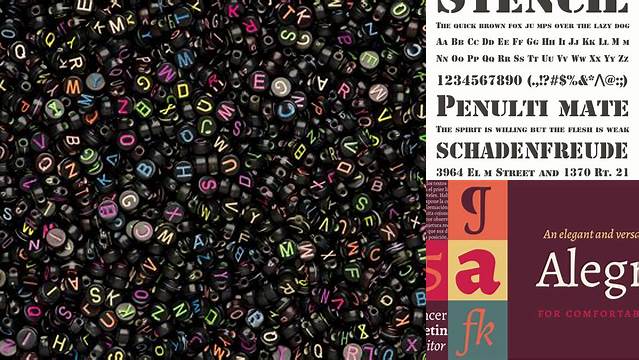
Google Fonts Stencil: Free Unique Fonts For Your Designs
Are you looking to add a unique, industrial, or vintage touch to your design projects? Look no further than stencil fonts available on Google Fonts! These fonts, characterized by their cut-out designs, offer a distinctive aesthetic that can elevate your branding, posters, logos, and more. In this comprehensive guide, we'll delve into the world of Google Fonts stencil fonts, exploring their history, characteristics, best uses, and providing practical tips for incorporating them effectively into your designs. So, buckle up, design enthusiasts, and let's explore the world of stencil fonts!
What are Stencil Fonts?
Stencil fonts, at their core, are typefaces designed with breaks or gaps in their letterforms, mimicking the appearance of letters created using a physical stencil. The history of stencil fonts is deeply intertwined with practical applications. Imagine needing to label crates, mark military equipment, or create signage quickly and efficiently. Stencils provided a reusable solution, and the fonts evolved to reflect this functional origin. These fonts evoke a sense of industrial history, DIY culture, and utilitarian design. Because of their roots, they can convey a sense of authenticity and ruggedness that other fonts might lack. This makes them perfect when you want to evoke the past or communicate a no-nonsense, practical message. Stencil fonts are instantly recognizable and can add a lot of character to a design. They immediately catch the eye, making them ideal for headlines, posters, and branding elements where you want to make a statement. The cut-out design lends itself well to creative applications, from layering and coloring to incorporating textures and patterns. Beyond the classic, utilitarian look, stencil fonts come in a surprising variety of styles. You can find modern, geometric stencils, as well as more decorative and ornate versions. Some have a subtle, almost unnoticeable break in the letterforms, while others feature bold, dramatic gaps. The versatility of stencil fonts means they can be adapted to a wide range of design projects, from branding and advertising to web design and even fashion. Ultimately, the goal is to use them strategically to enhance your design and communicate the intended message. Consider the overall tone and feel you want to achieve and choose a stencil font that complements your vision.
Why Choose Stencil Fonts from Google Fonts?
Top Google Fonts Stencil Fonts to Consider
Selecting the right stencil font from Google Fonts can significantly impact the overall aesthetic and message of your design. Here are some top contenders, each with its unique charm and application:
- Bebas Neue Stencil: A sleek and modern stencil font that maintains the clean lines of the popular Bebas Neue family. Ideal for headlines, posters, and branding where you want a contemporary and impactful look.
- Staatliches: With its bold and geometric design, Staatliches exudes a sense of strength and authority. Perfect for industrial-themed designs, logos, and signage.
- Archivo Black: A heavyweight sans-serif with a stencil cut, Archivo Black commands attention. Use it for headlines, banners, and any design element that needs to make a bold statement.
- Paytone One: This rounded and playful stencil font offers a more approachable and friendly feel. Great for children's books, posters, and designs that need a touch of whimsy.
- Russo One: A futuristic and technological stencil font that evokes a sense of innovation and progress. Ideal for tech-related designs, websites, and branding.
- Orbitron: Inspired by the space age, Orbitron is a geometric sans-serif font family intended for display purposes. It features multiple weights and a stencil variant, perfect for designs with a futuristic or science fiction theme.
- Special Elite: Mimicking the look of a typewriter, Special Elite adds a vintage and retro touch to your designs. While not a traditional stencil font, its textured appearance creates a similar effect.
- Luckiest Guy: A hand-drawn and casual stencil font that brings a personal and authentic feel to your designs. Use it for posters, invitations, and designs that need a touch of handmade charm.
- Denk One: A bold and angular display typeface with a stencil variant, Denk One is perfect for headlines, posters, and other designs where you want to make a strong statement.
- Caveat Brush: This rough and expressive brush script font offers a unique stencil-like effect. Use it for designs that need a handmade and artistic touch.
Remember to consider the overall tone and message of your design when selecting a stencil font. Experiment with different options to find the perfect fit for your project.
How to Use Stencil Fonts Effectively
Using stencil fonts effectively requires careful consideration of their unique characteristics and potential impact on your design. Here are some tips to help you make the most of these distinctive typefaces:
- Consider the Context: Stencil fonts often evoke a sense of industrial, military, or vintage aesthetics. Ensure that the chosen font aligns with the overall theme and message of your design.
- Use Sparingly: Stencil fonts are best used for headlines, titles, and logos, where their distinctive appearance can make a strong impact. Avoid using them for large blocks of body text, as the cut-out design can reduce readability.
- Pay Attention to Legibility: Choose stencil fonts with clear and well-defined letterforms, especially when working with smaller sizes. Ensure that the gaps in the letters don't obscure the shape and make the text difficult to read.
- Experiment with Color and Background: The cut-out design of stencil fonts allows for creative experimentation with color and background. Try using contrasting colors to make the letters stand out or placing the font over an interesting background to create a unique visual effect.
Stencil fonts from Google Fonts offer a unique and versatile way to add character and visual interest to your designs. Whether you're aiming for an industrial, vintage, or modern aesthetic, there's a stencil font to suit your needs. By understanding the history and characteristics of stencil fonts, exploring the diverse range of options available on Google Fonts, and following the tips outlined in this guide, you can effectively incorporate these distinctive typefaces into your projects and create designs that stand out from the crowd. So go ahead, unleash your creativity, and experiment with the world of Google Fonts stencil fonts! Remember to always consider the context, legibility, and target audience when selecting and using stencil fonts. And most importantly, have fun and let your creativity shine!